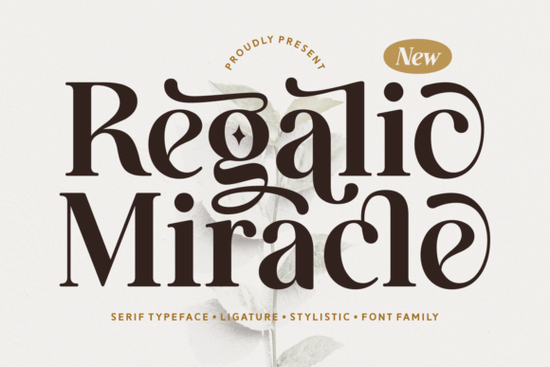
Looking for a serif font that brings timeless elegance to your designs? Regalic Miracle Font is a standout choice for anyone who values refined typography. It’s perfect if you're creating invitations, branding materials, packaging, or premium print-on-demand products. The font strikes a balance between classic structure and modern polish something that feels both sophisticated and approachable.
What makes Regalic Miracle different from other serif fonts?
While many serif fonts lean heavily into tradition, Regalic Miracle adds subtle refinements that elevate the overall feel. It’s not just about the shape of the letters it’s how they interact. The font includes beautiful ligatures that reduce visual clutter and give your text a more fluid, professional rhythm. These little details matter, especially when you’re designing something meant to impress.
You’ll also find stylish alternates and rich character variations built right in. That means you can switch between versions of the same letter to add unique touches without needing extra software. Whether you’re working on a luxury brand logo or a handcrafted wedding invitation, these options help your design stand out.
How does it perform across different projects?
One of the strengths of Regalic Miracle is its readability at various sizes. Even in smaller point sizes, the characters remain clear and distinguished. This makes it ideal for everything from business cards to large-format posters. Its balanced spacing and well-defined serifs prevent eye strain, which is important whether you’re printing physical copies or sharing digital content.
- Perfect for high-end branding – gives a polished, trustworthy impression
- Great for print-on-demand items – looks premium on mugs, tote bags, and stationery
- Works well in digital layouts – clean lines translate beautifully on screens
- Supports multiple languages – includes extended Latin characters for wider use
If you’ve been searching for a font that feels luxurious but isn’t overly ornate, this one hits the sweet spot. It’s not flashy, but it doesn’t need to be. The quiet confidence of its design speaks volumes.
Where can I use Regalic Miracle in my creative work?
Designers often turn to this font for projects where first impressions count. Think of wedding stationery, boutique packaging, editorial layouts, or even minimalist website headers. Because it reads so well, it’s not limited to decorative use it works in body text too, especially when paired with simpler sans-serif fonts.
For crafters and small business owners, it’s a go-to for creating consistent branding across platforms. Whether you’re launching a new line of handmade goods or updating your shop’s look, Regalic Miracle helps communicate quality without saying a word.
Why designers keep coming back to this font
It’s not just about aesthetics. The attention to detail shows in every aspect the way the strokes taper, how the curves flow, and how the kerning adjusts automatically. These are things that make a big difference when you’re finalizing a design that needs to feel intentional.
Final thoughts: Is Regalic Miracle worth adding to your toolkit?
If you’re someone who values clarity, refinement, and versatility in their typography, the answer is yes. It’s not the flashiest font on the market, but it’s one of the most reliable. It performs well across formats, supports diverse projects, and brings a sense of calm sophistication to any layout.